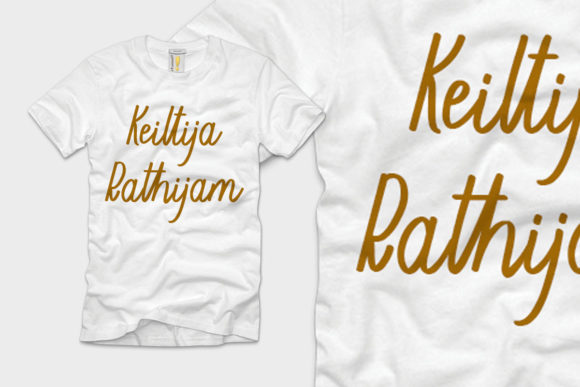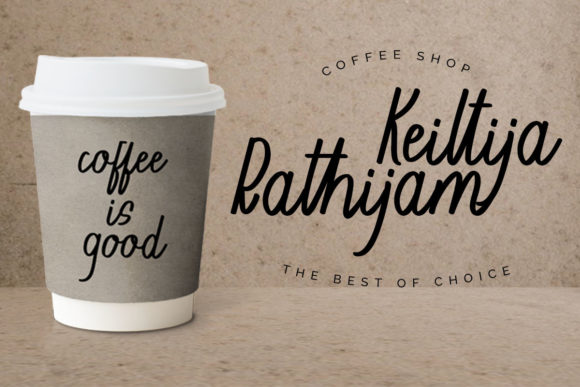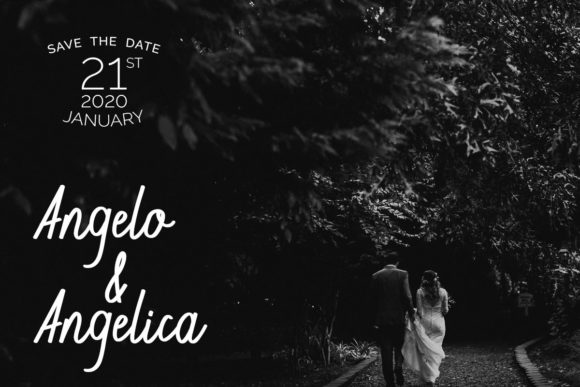
Introduction to Keiltija Rathijam Font
Have you ever found yourself staring at a blank page, desperately searching for the perfect font to bring your creative project to life? That’s exactly what happened to me last week, and I’m thrilled to share with you my discovery – the enchanting Keiltija Rathijam Font. This lovely, clean, and well-balanced script font exudes elegance and class, making it the perfect design resource for anyone looking to elevate their work.
As a designer myself, I can attest to the value of having a high-quality font like Keiltija Rathijam Font in your toolkit. Not only does it provide a beautiful and refreshing look, but it’s also available for free download, making it an accessible resource for designers of all levels.
With its transparent background and versatile design, Keiltija Rathijam Font is the perfect addition to any creative project, whether you’re working on a branding campaign, a wedding invitation, or a social media graphic. In this article, we’ll take a closer look at what makes Keiltija Rathijam Font so special and explore its many uses in design.
Key Features of Keiltija Rathijam Font
- High-quality design ideal for creative projects, offering a unique aesthetic for designers and artists.
- Transparent background, allowing for seamless integration with various design elements and backgrounds.
- Includes a range of glyphs and characters, making it suitable for various languages and creative applications.
- Supports various font sizes and resolutions, including high-resolution displays, ensuring crisp and clear text rendering.
- Unique characteristics and styles make it an excellent choice for designers working on high-end creative projects.
Honest Review: Keiltija Rathijam Font
I recently had the chance to work with the Keiltija Rathijam Font, and I must say it’s been a great addition to my design resource library. ✨ The high quality of this font is immediately noticeable, with clean lines and a sophisticated look that’s perfect for creative projects.
One of the standout features of the Keiltija Rathijam Font is its transparent background, which makes it easy to work with in a variety of design applications. This also means that it pairs well with other fonts and design elements, making it a versatile choice for designers.
- High quality design and clean lines
- Transparent background for easy pairing
- Only available in a single weight, which may limit its use in certain design applications ⚠️
- May not be suitable for projects that require a bold, attention-grabbing font
Overall, I’m impressed with the Keiltija Rathijam Font and would definitely recommend it to designers looking for a high-quality, free font for their creative projects.
Getting the Most Out of the Font
For optimal results, use the Keiltija Rathijam Font in conjunction with other high-quality design elements. Experiment with different font sizes, colors, and combinations to create a unique and visually appealing design for your creative project.
The Keiltija Rathijam Font is suitable for various design projects, including brochures, posters, business cards, and digital presentations. Its transparent background and high-quality design make it an excellent choice for designers seeking a versatile and free design resource.